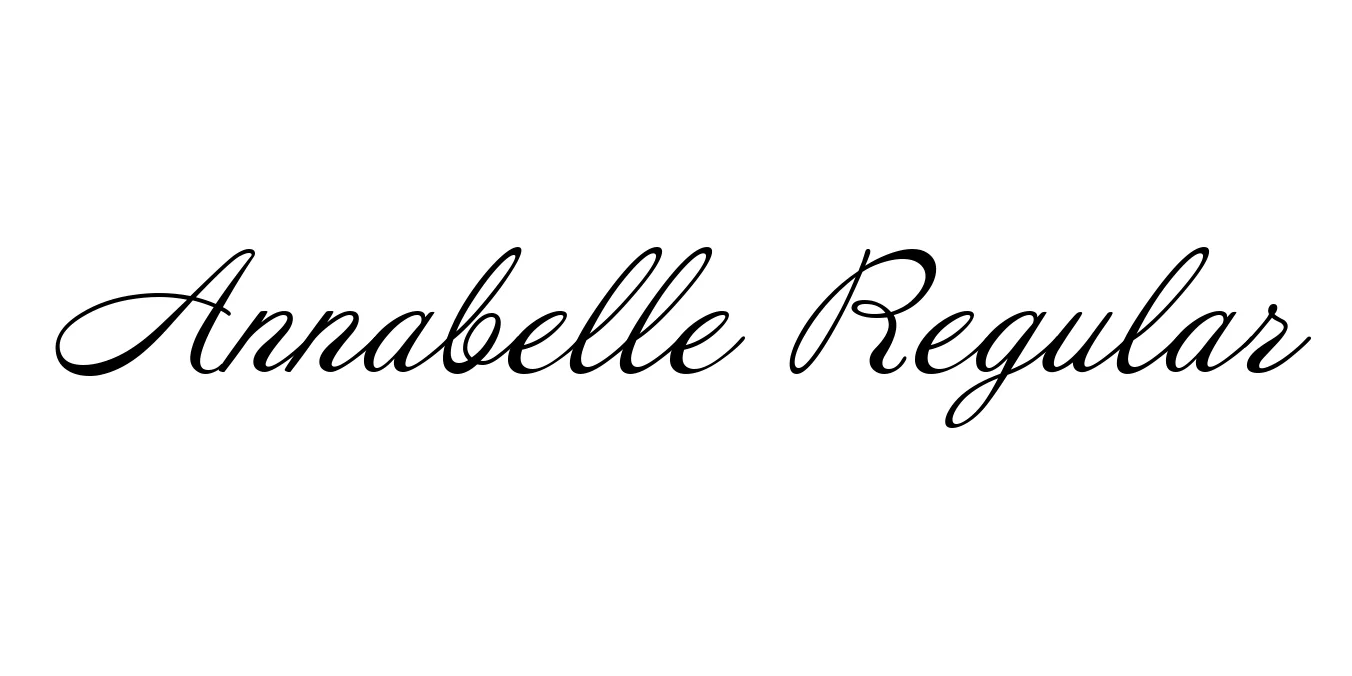
Annabelle Regular
Designed by Vicky Mardian
Annabelle Regular is a sophisticated script typeface that embodies grace and fluid movement. Drawing heavy inspiration from traditional copperplate calligraphy, it strikes a perfect balance between formal elegance and contemporary hand-drawn charm. The font is defined by its dramatic high-contrast strokes and delicate hair-line connections, which evoke an immediate sense of luxury and high-end craftsmanship.
Designed with versatility in mind, this typeface maintains excellent legibility even with its cursive structure. It is particularly well-suited for projects that require a feminine or romantic touch, such as wedding invitations, luxury packaging, and boutique branding. The inclusion of subtle swashes allows designers to create a personalized aesthetic that feels both bespoke and professional.
Annabelle Regular Best Uses
Ideal for invitations, place cards, and save-the-date announcements.
Perfect for luxury fashion, beauty products, and jewelry brand logos.
Excellent for creating elegant quotes and aesthetic Instagram stories.
Best used for decorative headlines and pull-quotes in lifestyle magazines.